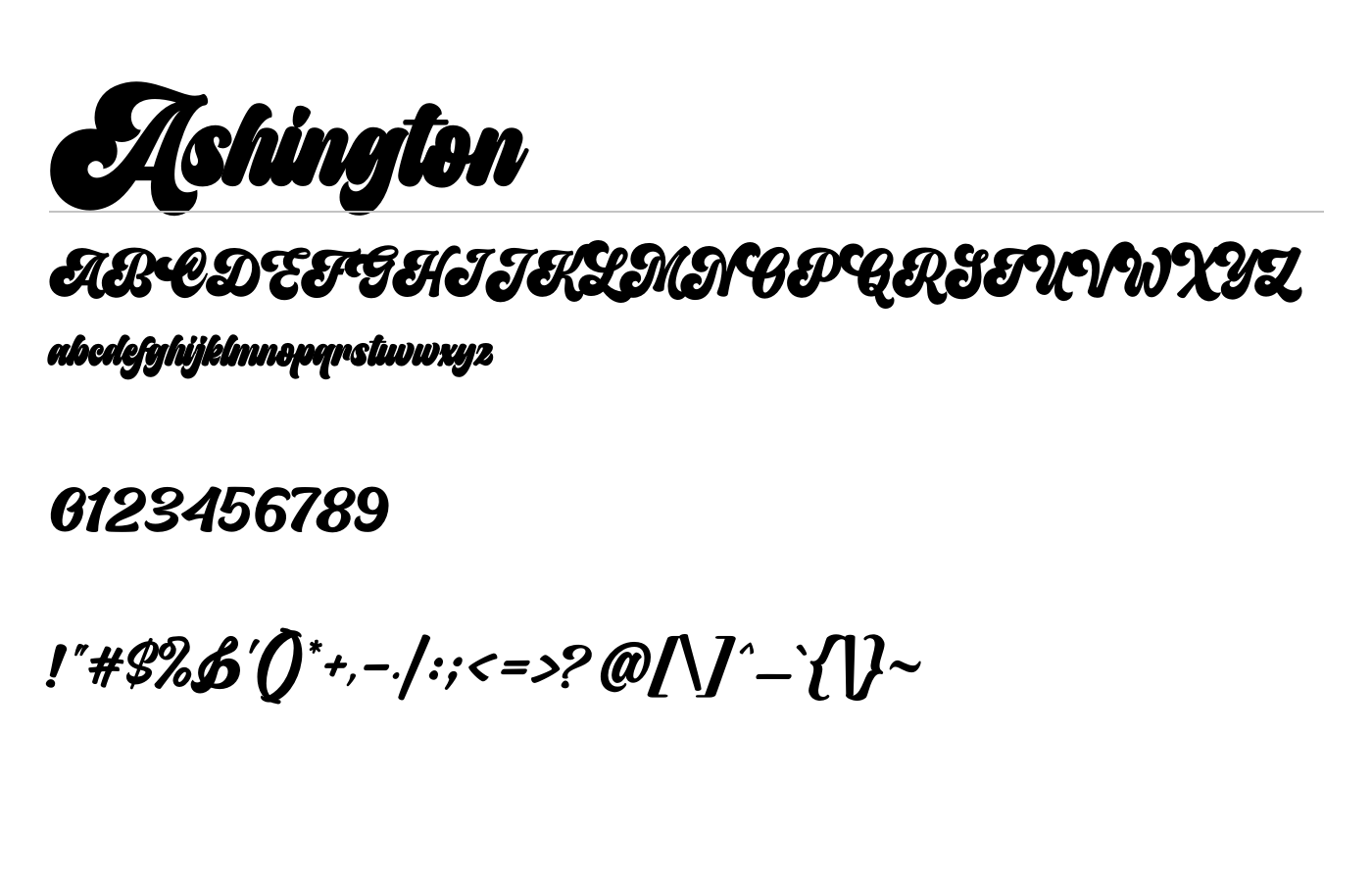
Ashington is a bold, script-style font with a strong, flowing character that combines thick strokes and smooth curves to create a vintage yet energetic feel. Its rounded, connected letterforms and high contrast make it ideal for eye-catching headlines, logos, and branding where a playful but confident personality is desired. Perfect for retro-themed designs, packaging, or fashion branding, Ashington brings a vibrant and stylish touch to any creative project.
Ashington Font
About Ashington Font
| Font family | Ashington Font |
| Designer | Rangga Singgih Subekti |